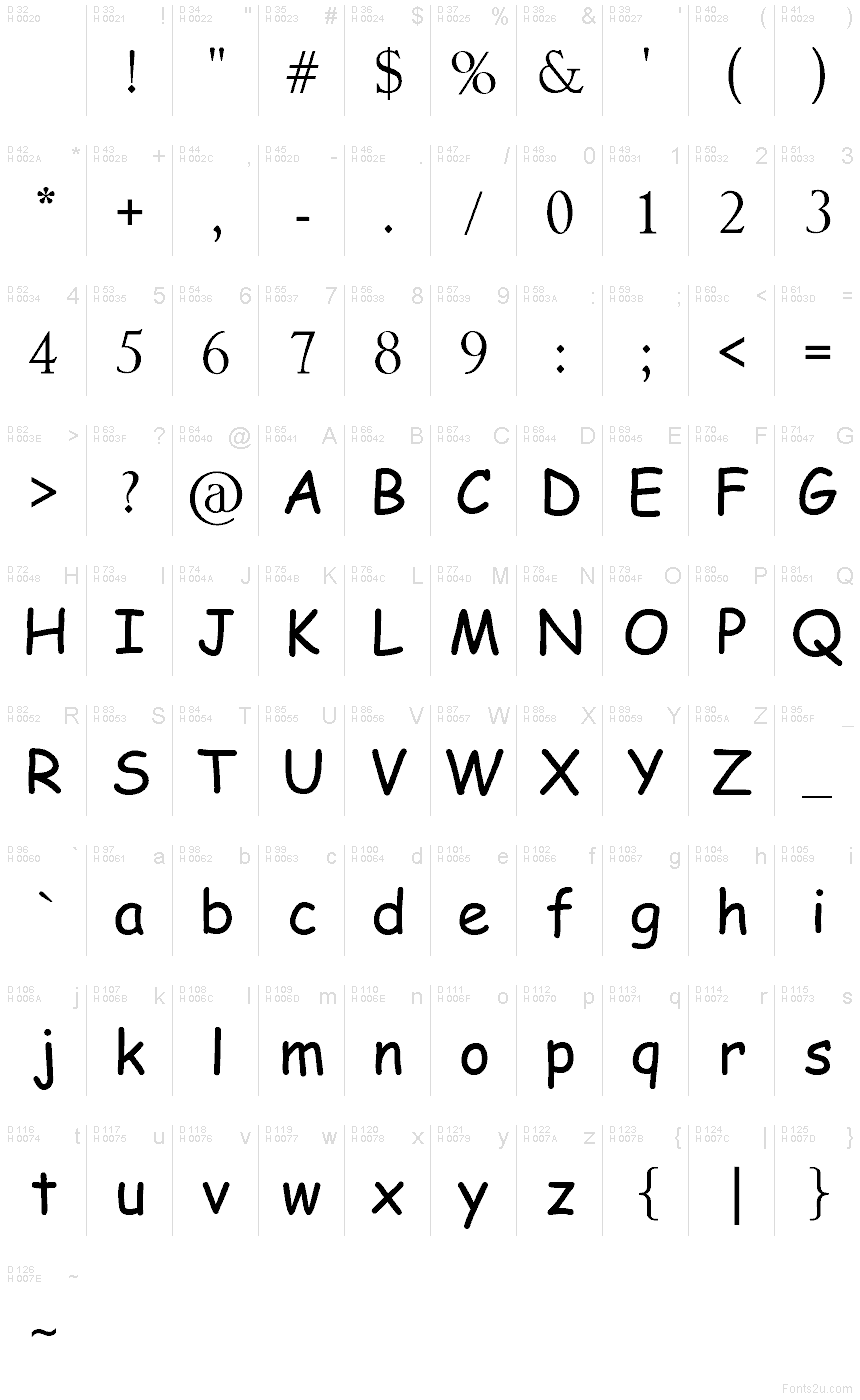
KobanneIsNotALonee Regular
Kobanne Is Not ALonee font is a free handwritten font that relays messages in a clear and bold fashion. All that matters is visible within the characters created here. Whether we take them apart and look at the letters or examine them as they form words, the results will definitely pull the needed attention their way.
Nothing too fancy might be drawn with this font, but all sorts of advertising designs are possible. Choose an online ad banner… or go for printed catalogs, magazines, journals, brochures, or newspapers that use Kobanne Is Not ALonee if you want to reach out to people differently!